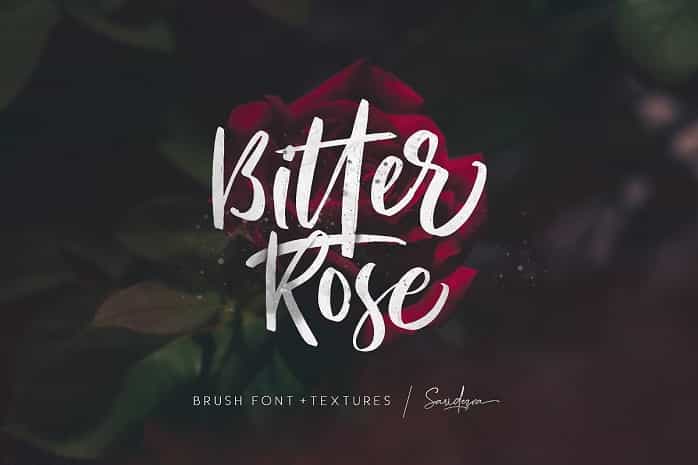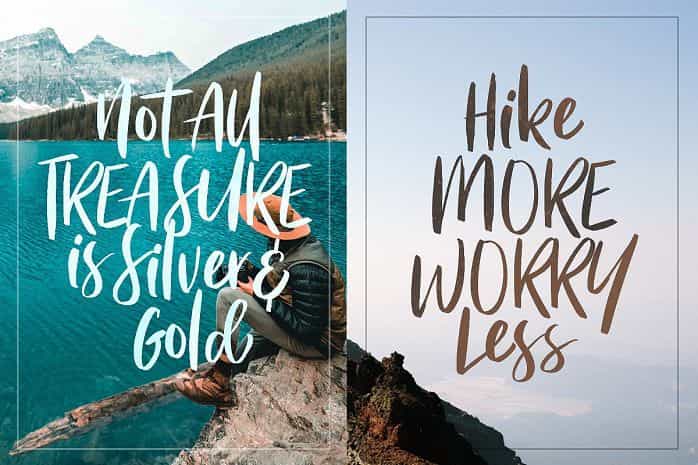
Discover Bitter Rose Brush Font, part of the Brush collection—a versatile and unique font perfect for adding a personal touch to your projects. Download it for free and enjoy crafting designs with style, from invitations to social media posts. This font is available exclusively for personal use, giving you the freedom to create without limits. Unlock your creativity with Bitter Rose Brush Font today!
Introducing Bitter Rose Font. The invention of Bitter Rose Font was a joint effort by Sarid Ezra and his team. Create your own customized signature or logo design using the stylish and versatile Bitter Rose brush font. This font was specifically designed to support multiple languages. You can choose between OTF and TTF. Also; Support PUA. This font will perfect for many different project ex. logos, invitations, presentations, and more